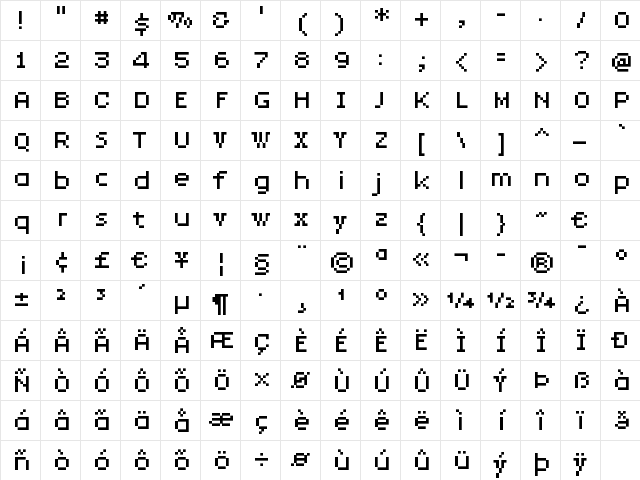
LoResNine Wide Free Font
LoResNine Wide
Designer: Zuzana Licko
Design Context for LoResNine
LoResNine is a composed and adaptable typeface that performs quietly and consistently across a wide range of design contexts.